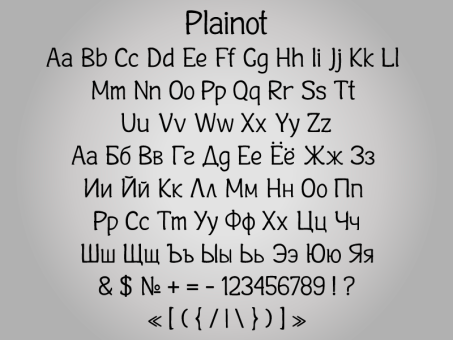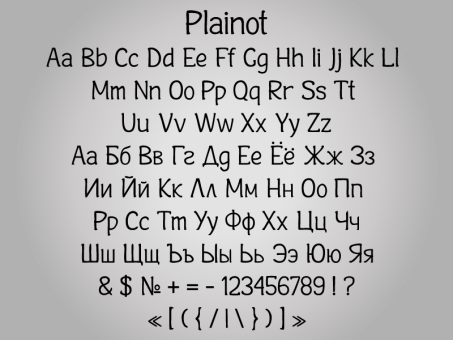
Plainot
A decorative face of freestyle flowing letterforms, it is stylized a little under wide brush calligraphy.
Designer: Leonid Malkiev
Publisher: Leonid Malkiev